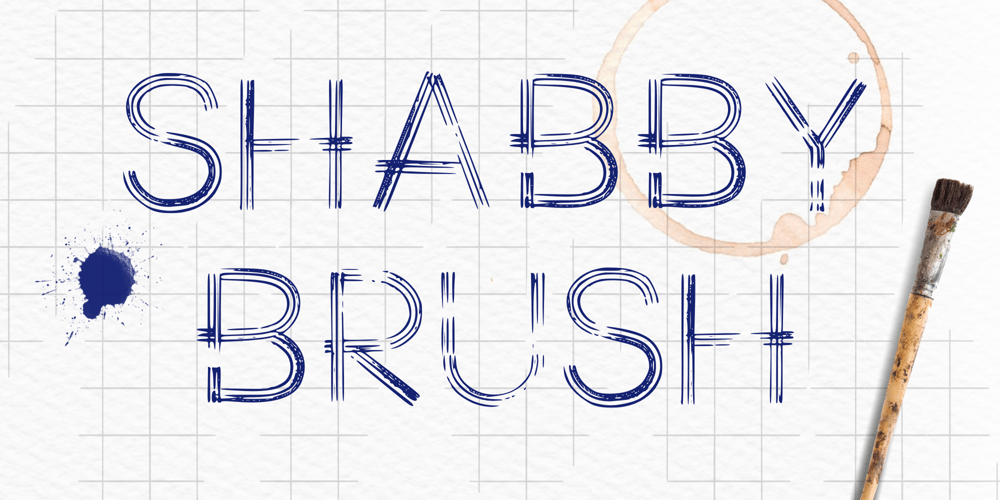
Shabby Brush Font Family was designed by Pavel Liapiokhin and published by Pavel Boog. Shabby Brush contains 1 styles and family package options. Shabby brush – creating this font Pavel was inspired by the past and visualized a good future.Erasing lines of letters, like memories that have passed through years. The long-lasting brush continues to create and inspire with all its strength